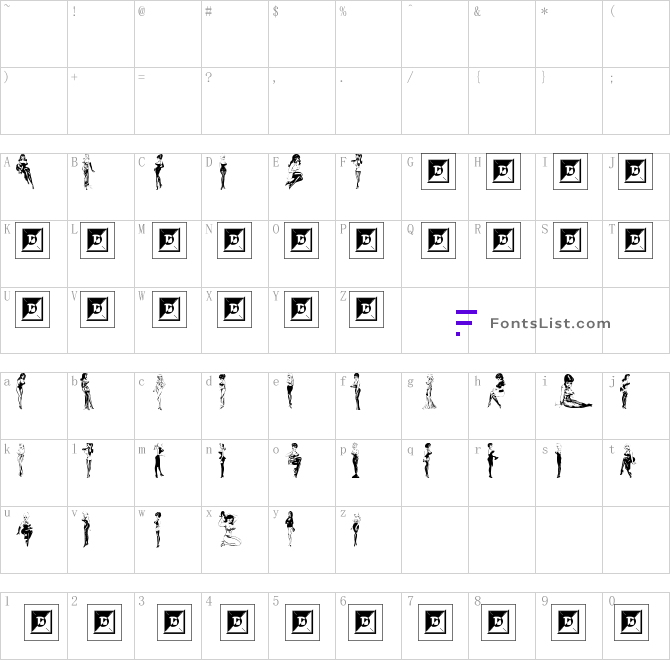
- Font Name:Beauties by Bill Ward
Beauties-by-Bill-Ward.ttf is a very beautiful artistic font, Beauties-by-Bill-Ward.ttf is widely used in the design and printing of various books and pictures,Beauties-by-Bill-Ward.ttf has a strong visual impact,Beauties-by-Bill-Ward.ttf is a commonly used font in newspapers, magazines and books, and is used in posters, e-commerce Poster design, store design, logo design, font design and other fields.Beauties-by-Bill-Ward.